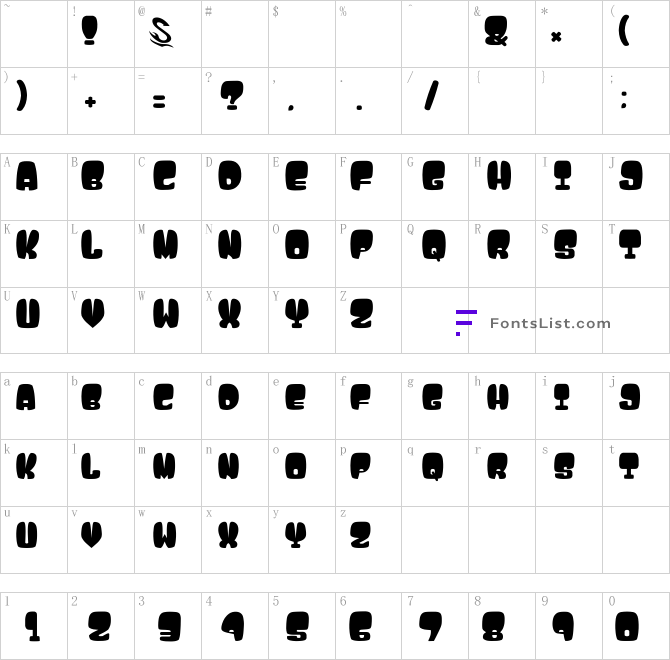
- Font Name:Atama__G
Atama__G.ttf is a very beautiful artistic font, Atama__G.ttf is widely used in the design and printing of various books and pictures,Atama__G.ttf has a strong visual impact,Atama__G.ttf is a commonly used font in newspapers, magazines and books, and is used in posters, e-commerce Poster design, store design, logo design, font design and other fields.Atama__G.